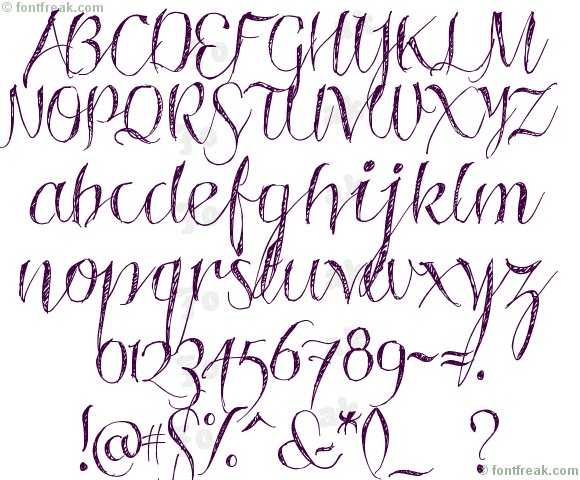
Roskrift
About Roskrift
The Roskrift font, created by Mans Greback, is a captivating script typeface that combines elegance and a handcrafted feel. This font features a unique blend of fluid curves and playful strokes, making it ideal for projects that require a personal touch. The stroke weight varies, providing a delightful contrast that enhances its visual appeal. The spacing between characters is thoughtfully designed to ensure legibility while maintaining a graceful flow, making it easy to read in various contexts.
Roskrift is particularly well-suited for wedding invitations, where its romantic essence can help set the tone for a special day. It also works beautifully for greeting cards, adding a warm and inviting feel to personal messages. Content creators will find it perfect for blog headings and social media graphics, injecting personality into digital content. Additionally, restaurant menus can benefit from the font's charming aesthetic, drawing attention to featured dishes in a stylish manner.
The target audience for Roskrift includes graphic designers looking for unique typefaces that stand out in their work, small business owners aiming to elevate their branding, and content creators seeking to enhance their visual storytelling. With its free license, the Roskrift font is accessible to a wide range of users, making it a valuable addition to any designer's toolkit.
What truly sets the Roskrift font apart is its ability to evoke emotion while remaining versatile across various applications. Its artistic flair and approachable design make it a go-to choice for anyone in need of a stylish yet functional typeface. For those interested, the Roskrift font free download offers an excellent opportunity to incorporate this distinctive font into your projects.